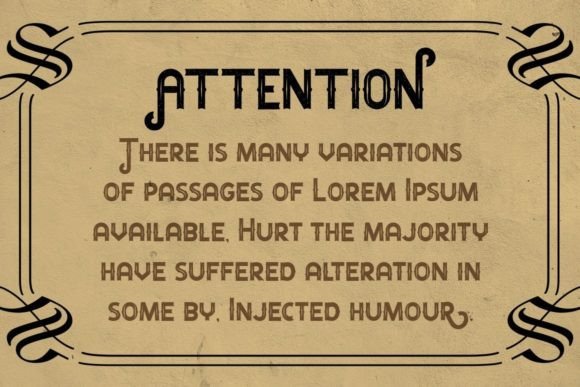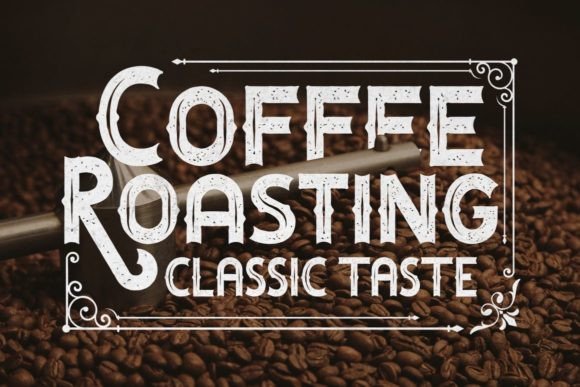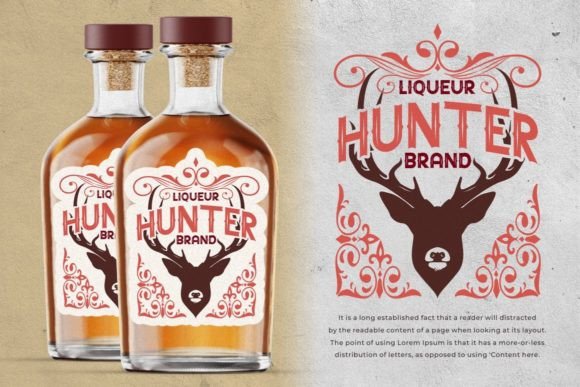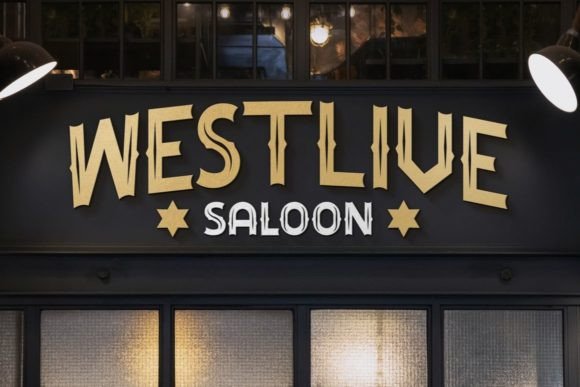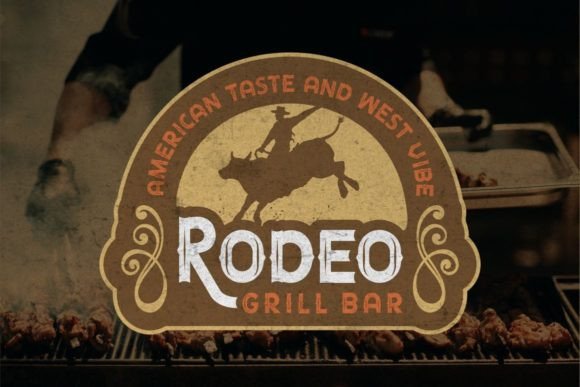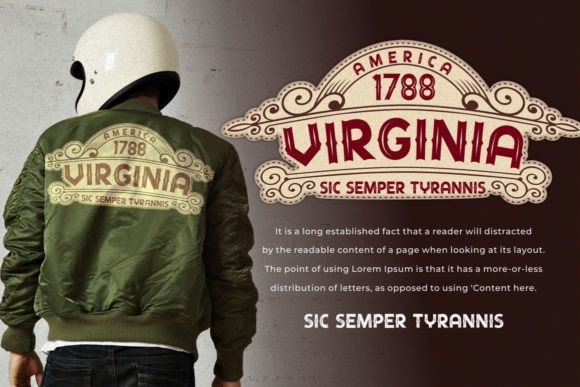
Introducing Classic Cassette Font: A Timeless Vintage-Style Display Font
Are you a designer or crafter looking for a font that can elevate your creative projects to new heights? Look no further than Classic Cassette Font, a cool vintage-style display font that’s sure to become a true favorite in your collection. With its masterful design and PUA encoding, this font has the potential to bring each of your creative ideas to the highest level.
The Charm of Classic Cassette Font
Classic Cassette Font is a beautifully crafted font that pays homage to the nostalgia of the past. Its vintage-style design is reminiscent of classic cassette tapes, evoking memories of mixtapes and music playlists from a bygone era. The font’s unique charm lies in its ability to add a touch of retro flair to any design project, making it perfect for crafters and designers who want to create something truly special.
Masterful Design for Creative Freedom
One of the standout features of Classic Cassette Font is its masterful design. The font has been carefully crafted to provide a high level of legibility and style, making it perfect for use in a variety of creative projects. Whether you’re designing a logo, creating a poster, or crafting a social media graphic, Classic Cassette Font is sure to impress.
Classic Cassette Font is PUA (Private Use Area) encoded, which means that you can access all the glyphs and ligatures with ease. This feature makes it simple to get the most out of the font, allowing you to experiment with different design elements and create unique and eye-catching designs. With PUA encoding, you can:
- Access a wide range of glyphs and ligatures
- Easily swap out characters and experiment with different designs
- Create complex and intricate designs with ease
Classic Cassette Font is perfect for designers and crafters who want to add a touch of vintage flair to their creative projects. The font is ideal for:
- Social media graphics and ads
Tips for Using Classic Cassette Font
To get the most out of Classic Cassette Font, here are a few tips to keep in mind:
- Experiment with different font sizes and colors to create visual interest
- Use the font’s glyphs and ligatures to add unique design elements
- Pair the font with other vintage-style fonts for a cohesive look
Classic Cassette Font is a timeless vintage-style display font that’s sure to become a favorite in your collection. With its masterful design, PUA encoding, and wide range of uses, this font has the potential to bring each of your creative ideas to the highest level. Whether you’re a designer or crafter, Classic Cassette Font is the perfect choice for anyone looking to add a touch of retro flair to their creative projects.